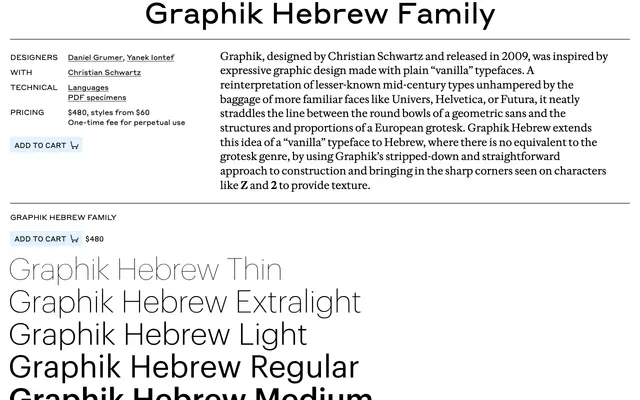
Graphik Hebrew
Graphik Hebrew specimen from Commercial Type
Yanek Iontef and Daniel Grumer's Hebrew companion to Graphik, translating the vanilla concept into a script with no native grotesk tradition.
A Hebrew companion to Graphik by Yanek Iontef and Daniel Grumer. Hebrew has no equivalent to the grotesk genre, so the designers took Graphik's stripped-down, plain approach and added the sharp corners seen on characters like Z and 2 to give the script its own texture. Nine weights with matching italics line up with the Latin Graphik, suiting editorial brands and publications working across Hebrew and Latin.
Commercial Type frame Graphik Hebrew as Yanek Iontef and Daniel Grumer's extension of Graphik's vanilla concept to Hebrew, a script with no equivalent grotesk genre, using stripped-down construction with sharp corners that echo characters like Z and 2.